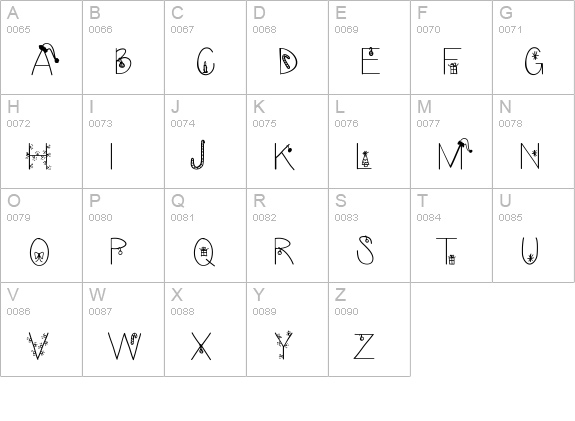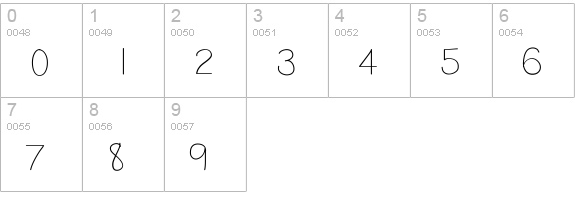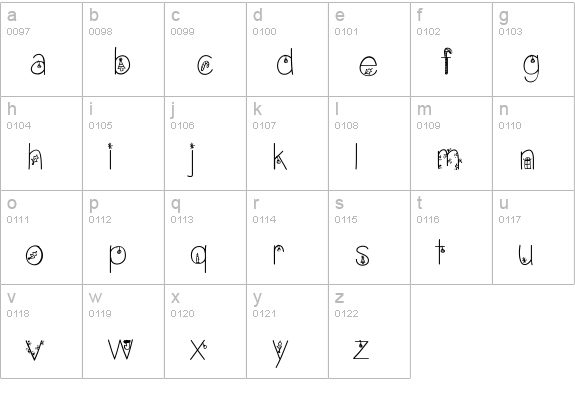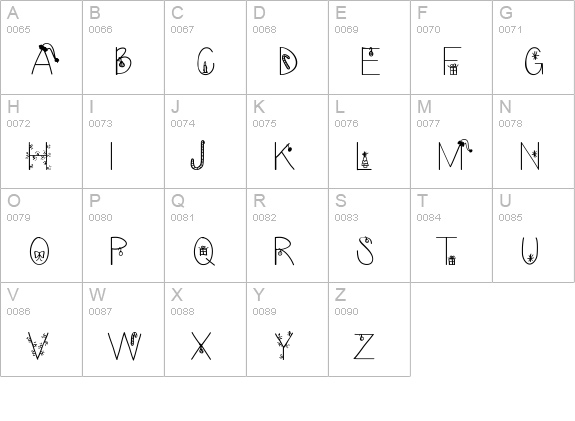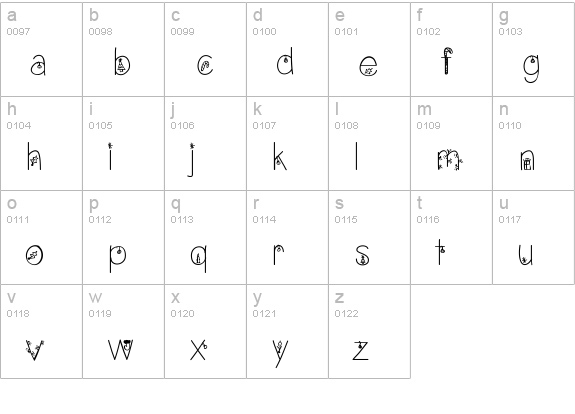
ChristmasEve Font Details
Introducing ChristmasEve font, the perfect typeface to add a touch of festive magic to your designs! This enchanting font captures the essence of Christmas Eve with its whimsical curves and playful serifs. It evokes feelings of warmth, joy, and anticipation, bringing to life the spirit of this special holiday season. ChristmasEve font is not only visually stunning but also incredibly versatile. Whether you're creating holiday cards, invitations, posters, or any other Christmas-themed project, this font will effortlessly elevate your designs to new heights. Its unique characters and intricate details make it stand out from the crowd, ensuring that your message will be noticed and remembered. The best part? ChristmasEve font is completely free! Yes, you read that right. This remarkable font is freely available to download at FontsMarket.com, a trusted source for high-quality fonts. Now, you can spread the Christmas cheer without breaking the bank. Don't miss out on the opportunity to enhance your designs with the magic of Christmas. Download ChristmasEve font today and watch your creations come to life. Whether you're a professional designer or a DIY enthusiast, this font will undoubtedly become your go-to choice for all things Christmas. So, go ahead and let your creativity shine this holiday season with ChristmasEve font.